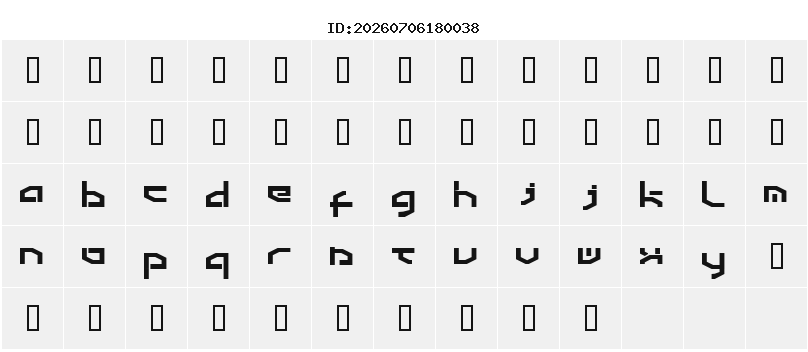
Detroit 3k Preview
• Font Name: Detroit 3k
• Full Font Name: Detroit 3k
• Character Count: 26
About Detroit 3k.ttf
Detroit 3k.ttf is a modern, elegant sans-serif font designed for ultimate readability and visual harmony. Perfect for branding, headlines, web design, and print materials.